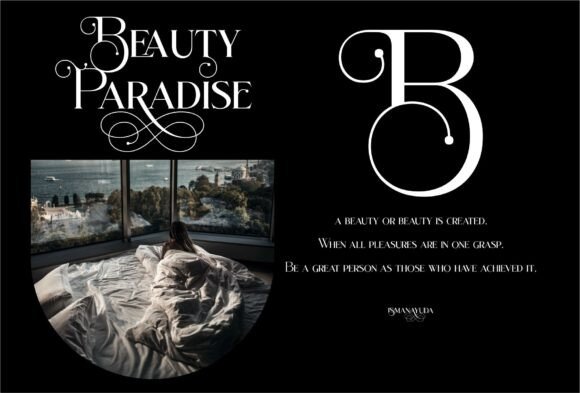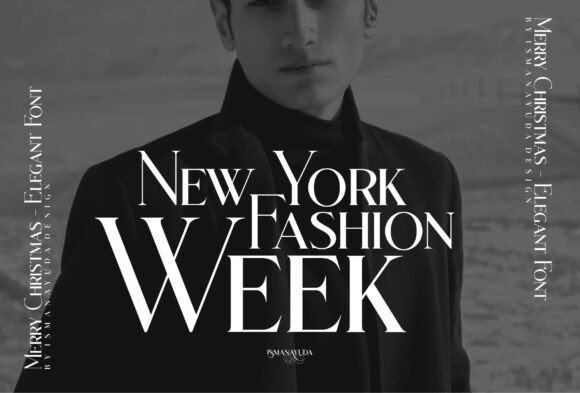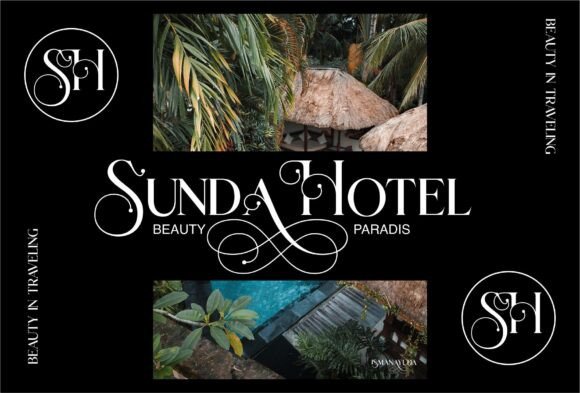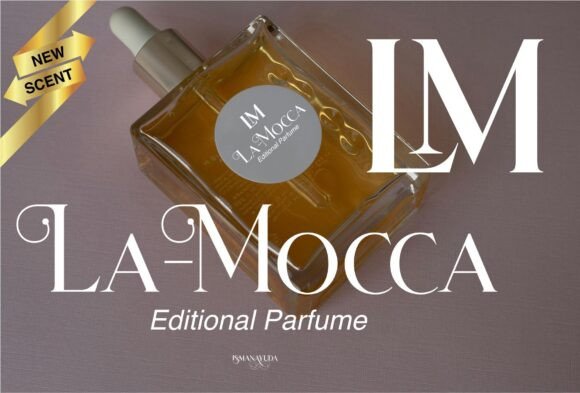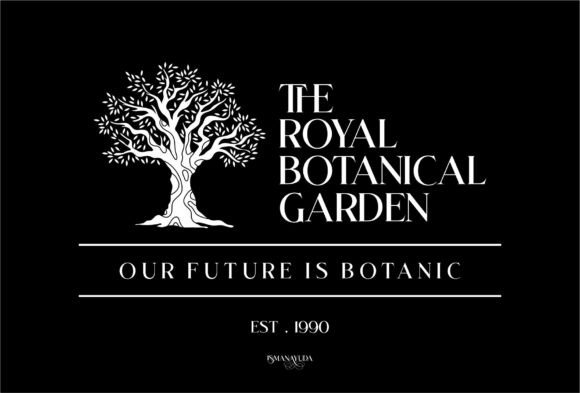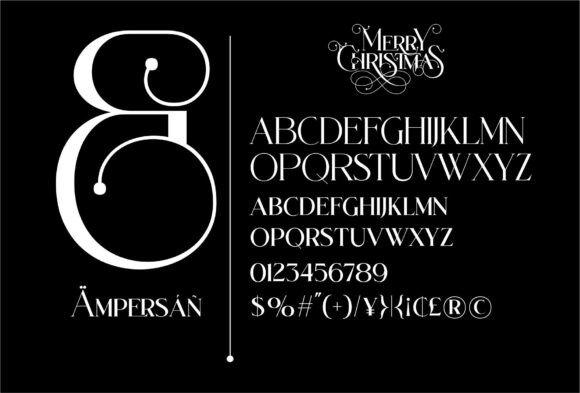
Introduction to Love Merry Christmas Font
Love Merry Christmas is a fancy, elegant serif font with a festive feel.
The letters have graceful curves and stylish details, perfect for holiday greetings, cards, and decorations that want a touch of classic charm .